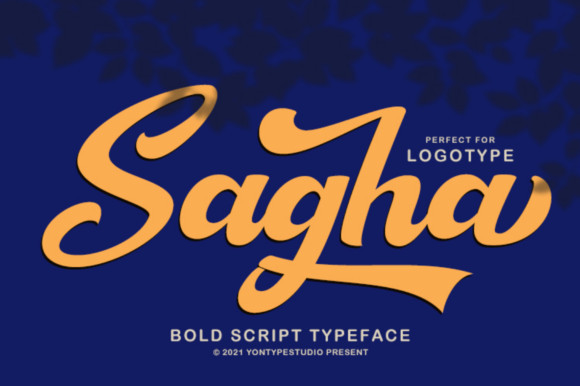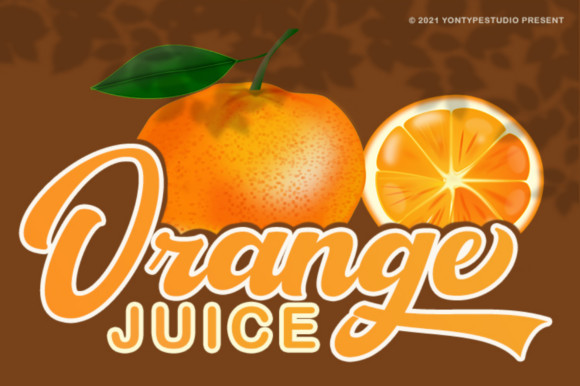
Sagha Font
Sagha is a retro styled, thick lettered handwritten font, crafted to give your headlines and logotype projects a stylish touch. This font reads as strong, confident, and dynamic and can add tons of nostalgic character to your designs.https://www.creativefabrica.com/product/sagha/